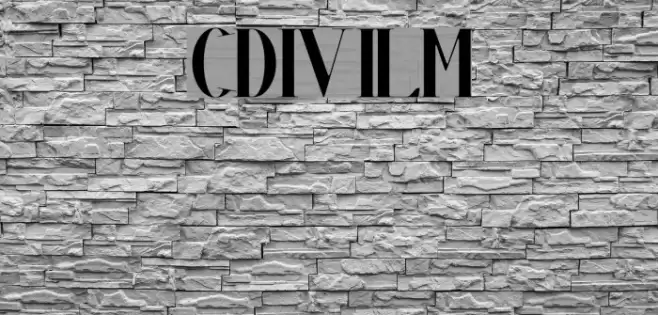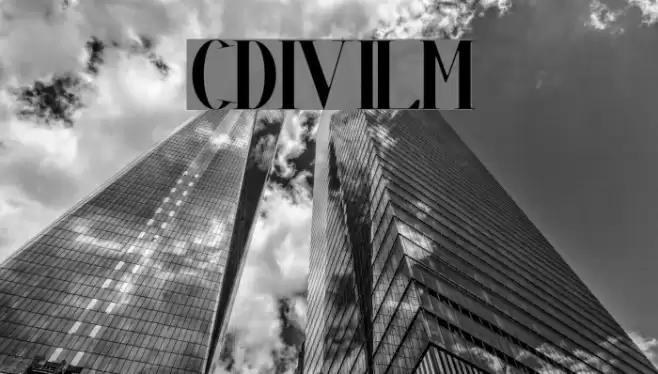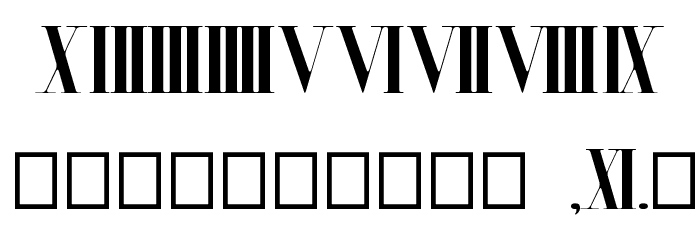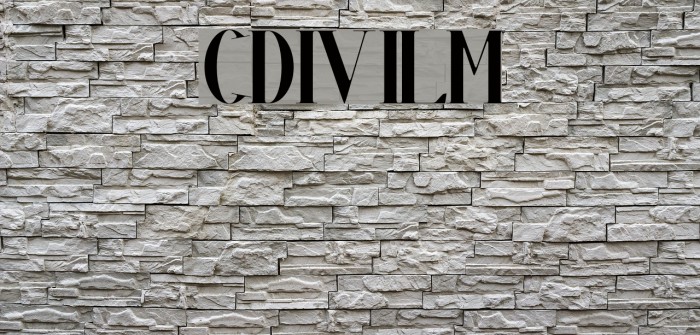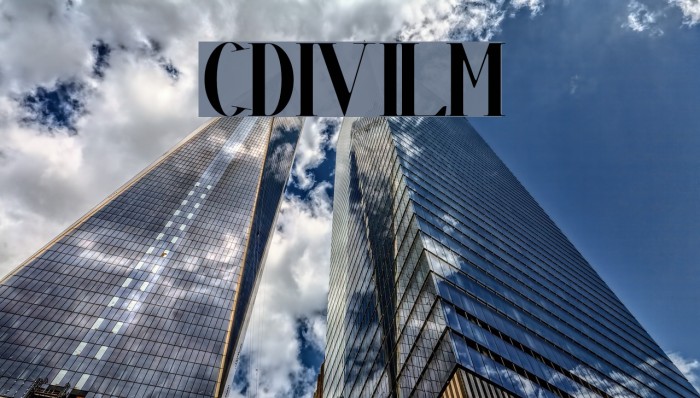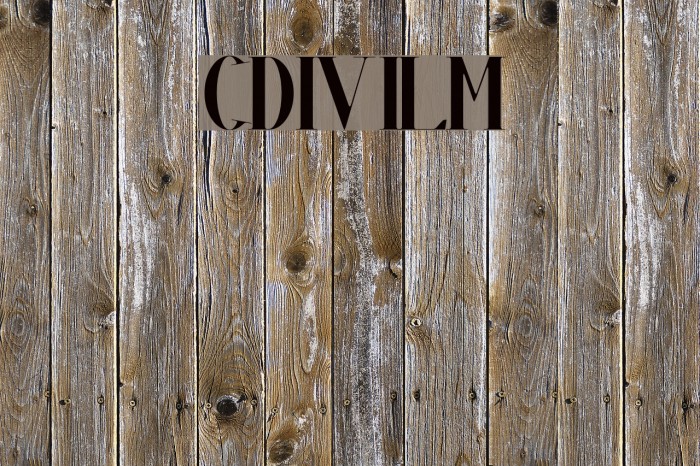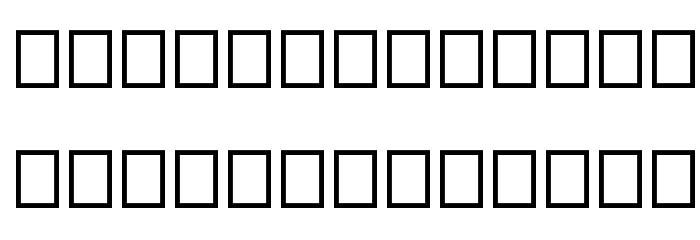
ChronosSquat Font
ChronosSquat Description
This font features a classic and elegant design, reminiscent of Roman numerals with a modern twist. The characters are tall and slender, with a high contrast between thick and thin strokes, giving it a sophisticated and timeless appearance. The serifs are sharp and pronounced, adding to the font's refined aesthetic. The overall style is both traditional and contemporary, making it versatile for various design applications. The spacing between characters is normal, ensuring readability while maintaining its stylish look.
A classic, high-contrast serif font with a modern twist from Uncategorized fonts.
- Proposed Projects: Ideal for use in formal invitations, luxury branding, editorial headlines, and historical-themed projects.
- Overall Style: Classic
- Use Case: Headlines, Logos, Editorials